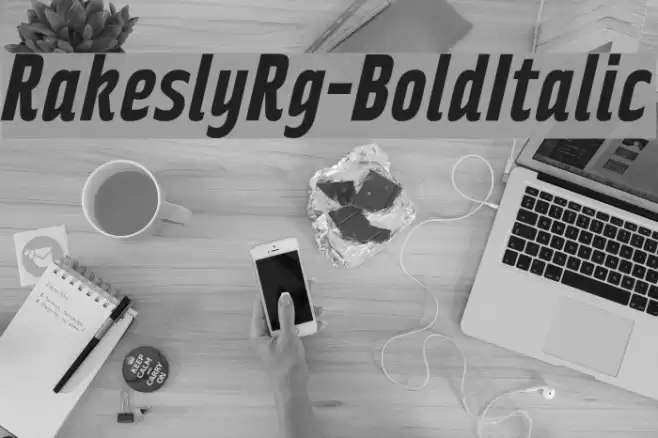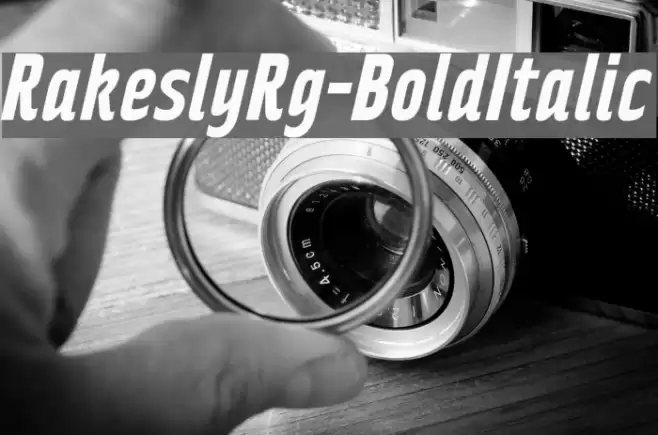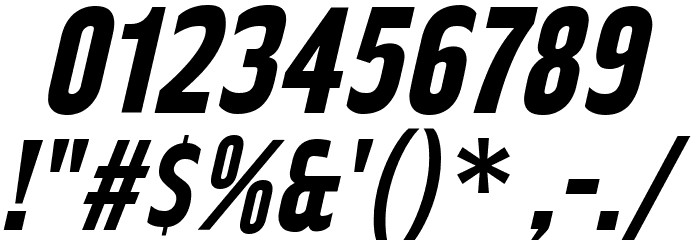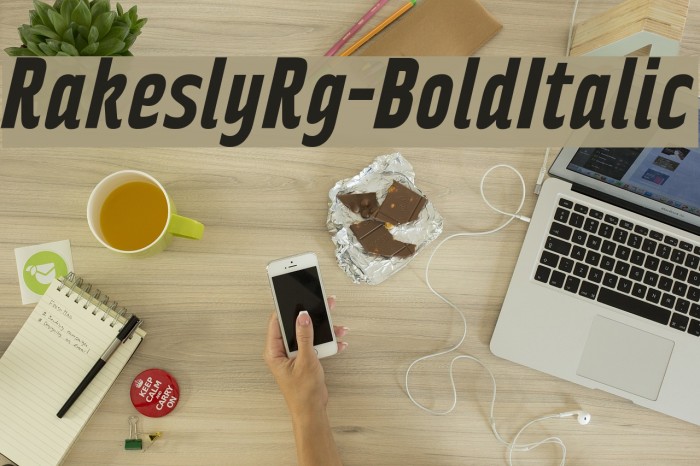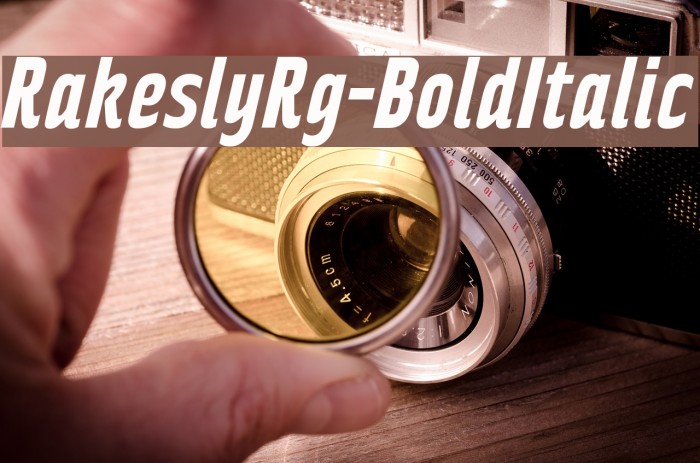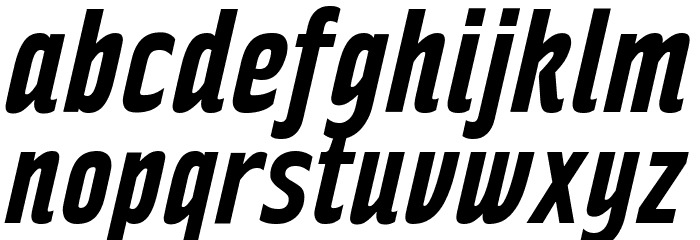
RakeslyRg-BoldItalic Font
RakeslyRg-BoldItalic Description
This font features a bold and italic style, characterized by its strong and dynamic appearance. The letters are slightly condensed, giving it a compact look while maintaining readability. The strokes are consistent in width, providing a uniform and cohesive appearance across all characters. The font includes both uppercase and lowercase letters, numbers, and a variety of special characters, making it versatile for different uses. Its slanted design adds a sense of movement and energy, making it suitable for projects that require a modern and impactful look.
A bold, italic, and slightly condensed font with a dynamic and modern style from Sans Serif fonts.
- Proposed Projects: Ideal for headlines, posters, branding, and advertising materials where a strong and energetic presence is desired.